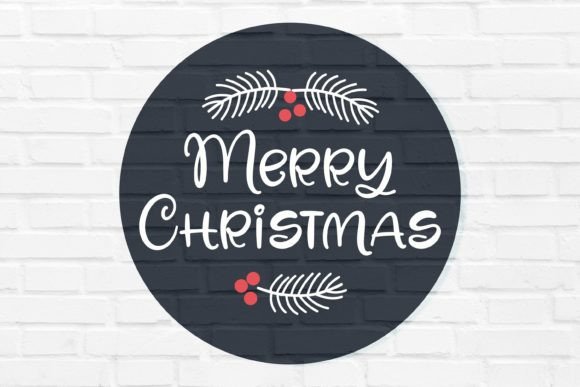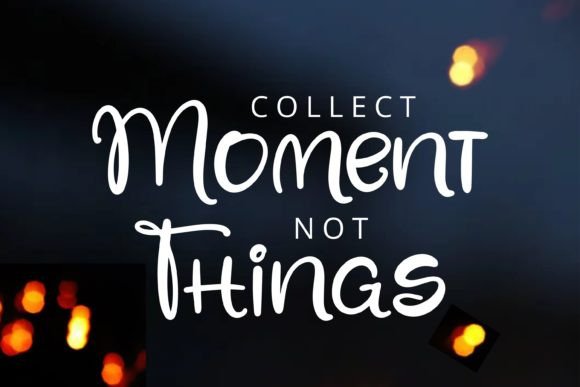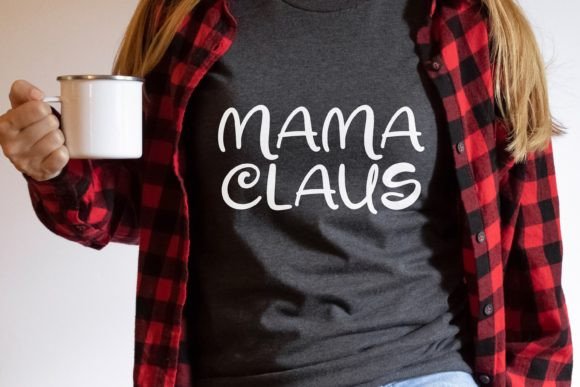
Holidays Christmas Font
Holidays Christmas is a cool, friendly, and informal handwritten font that can be used for all chalkboard quotes or teaching material! Its authentic look and feel will add a personal and realistic touch to your designs.